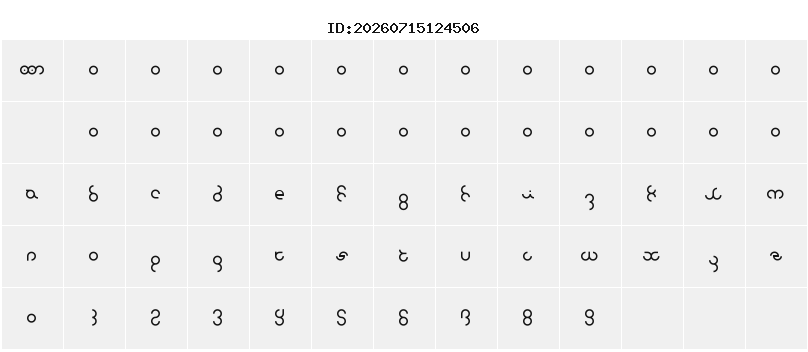
Z_metalflame Preview
• Font Name: Z_metalflame
• Font ID: Z_metalflame
• Full Font Name: Z_metalflame
• PostScript Name: Z_metalflame
About Z_metalflame.ttf
Z_metalflame.ttf is a modern, elegant sans-serif font designed for ultimate readability and visual harmony. Perfect for branding, headlines, web design, and print materials.